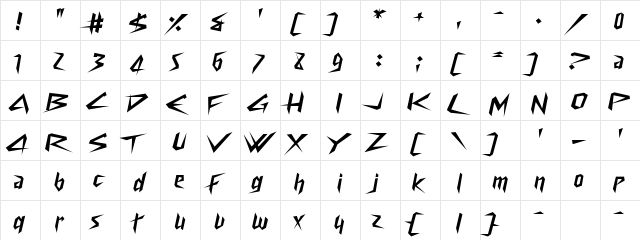
Cyberway Riders Regular
| Designer | Allison James |
Design Context for Cyberway Riders Typeface
Cyberway Riders channels digital-age aesthetics through its sharp, structured letterforms — ideal for brands that want to signal innovation.
Pro Tip: Use Cyberway Riders in combination with a neutral sans for body text. Let it define the brand voice in headlines while keeping reading comfortable elsewhere.